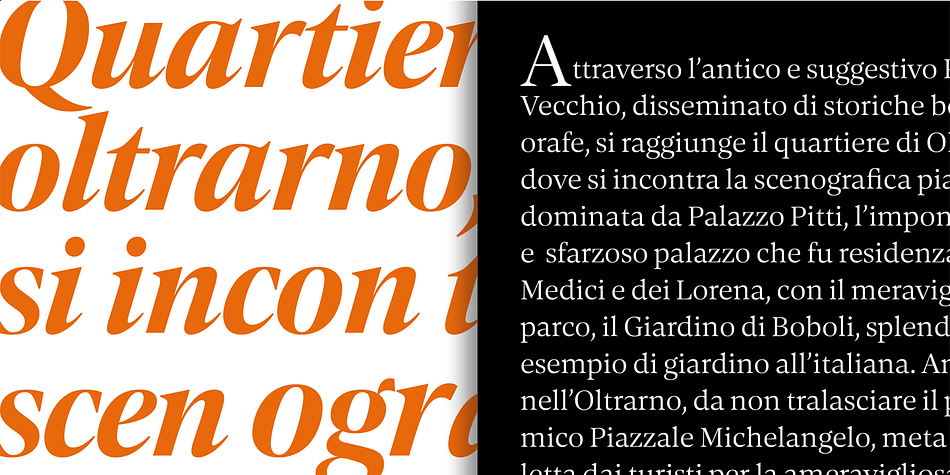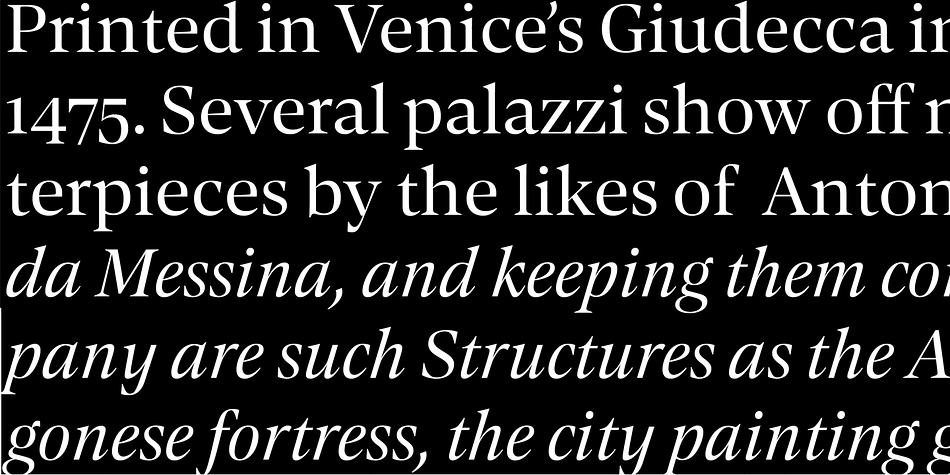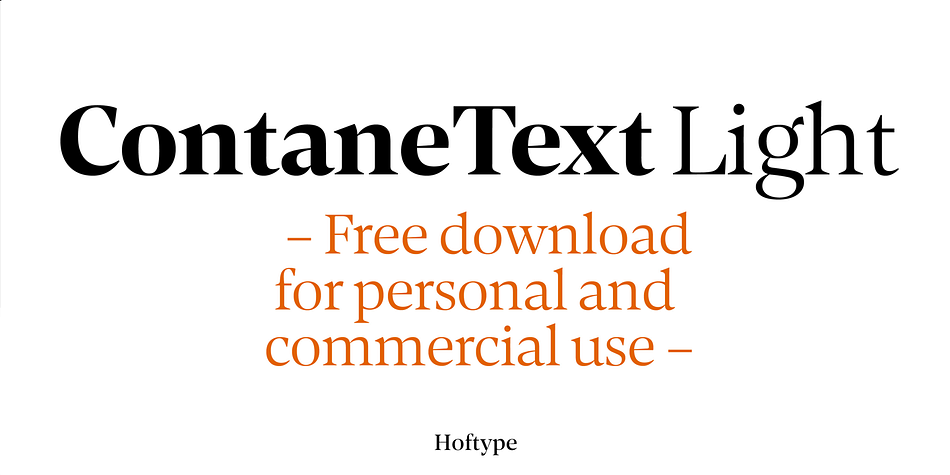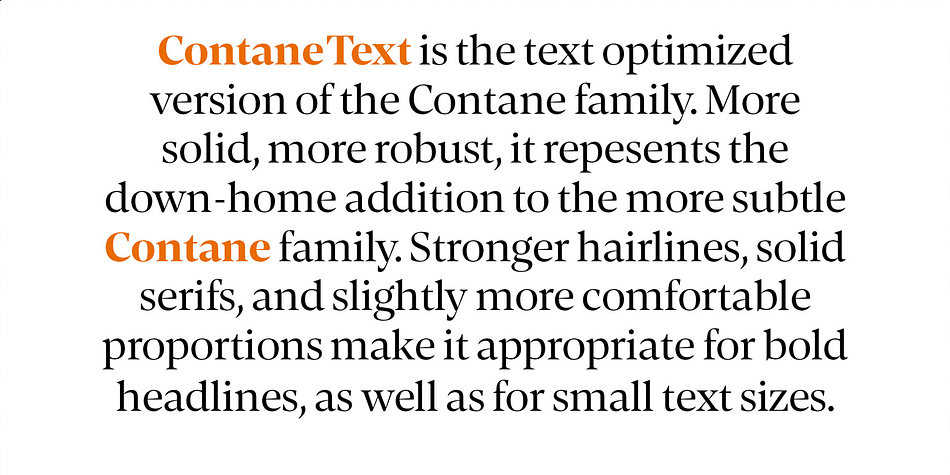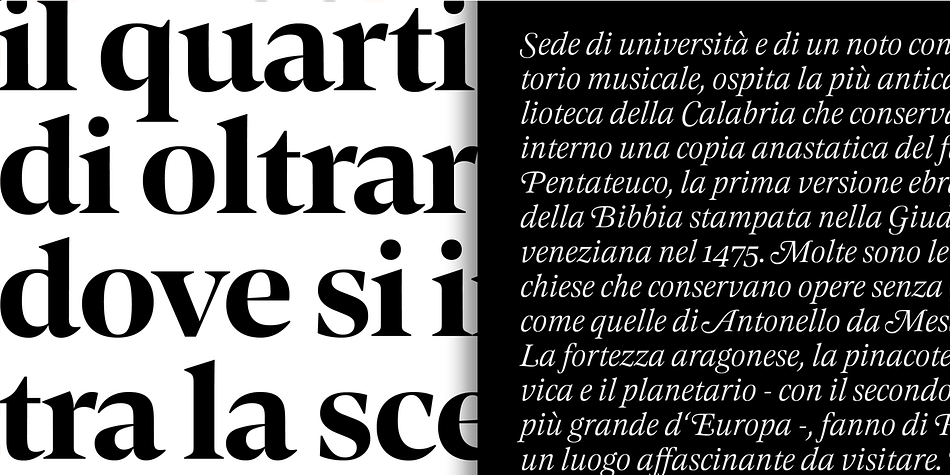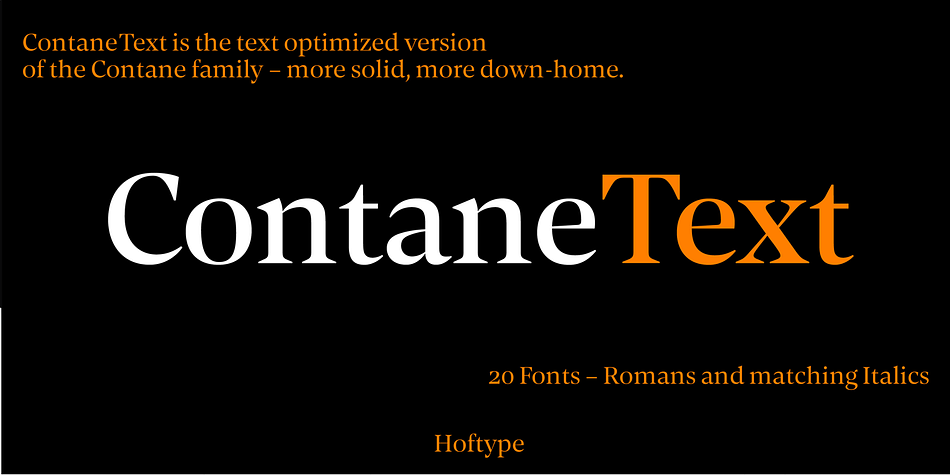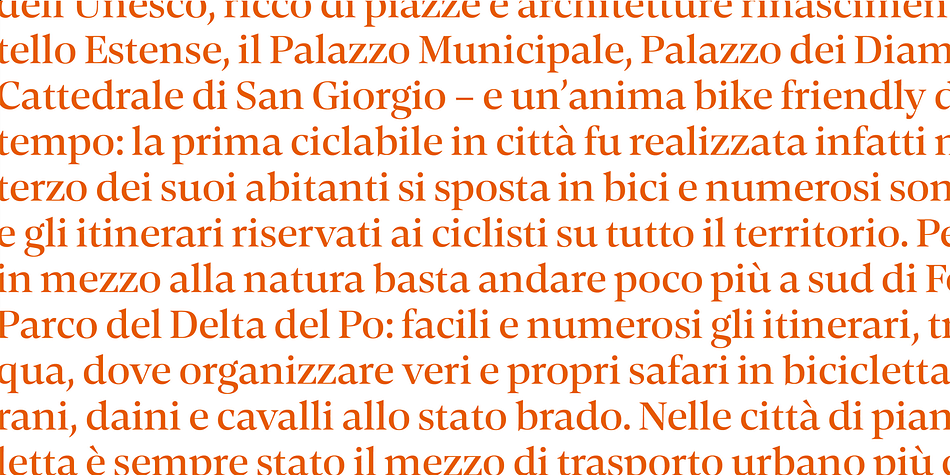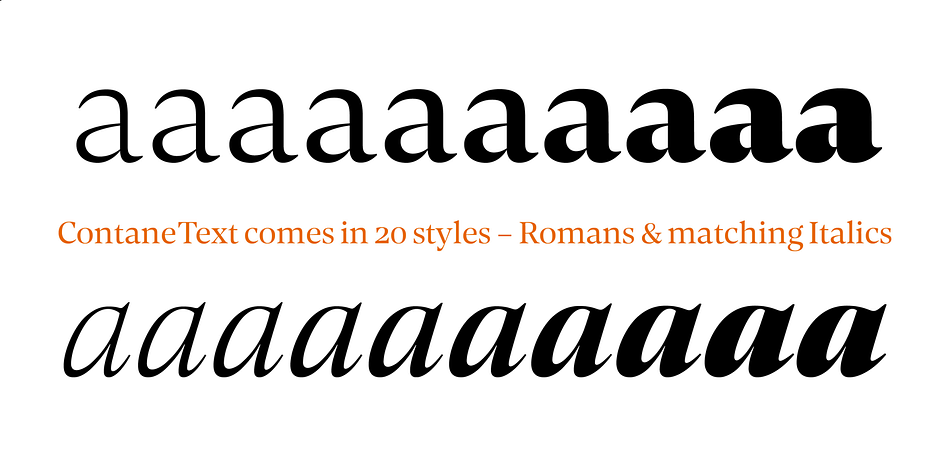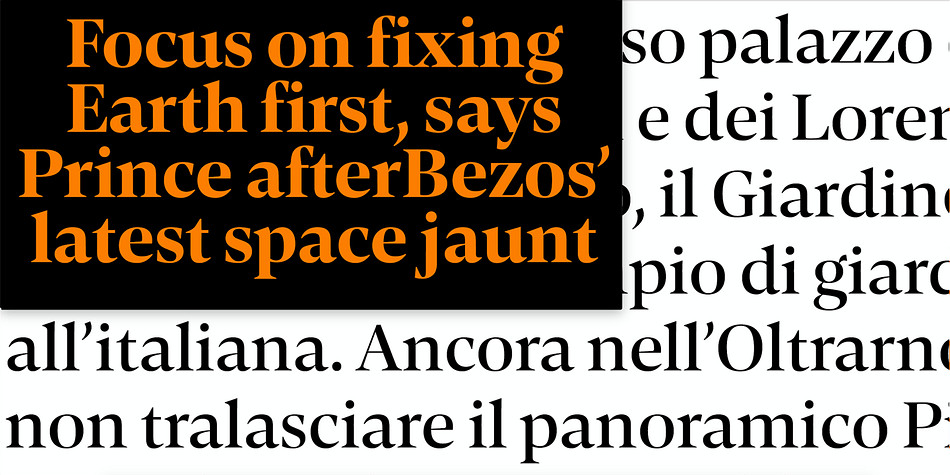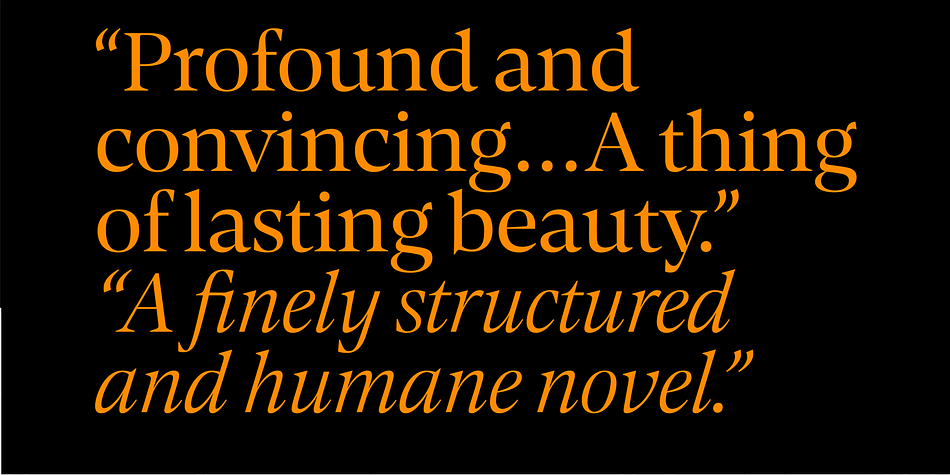
Contane Text
Designed by Dieter Hofrichter, Contane Text is a display serif and serif font family. This typeface has twenty styles and was published by Hoftype.
Contane Text is the text optimized version of the Contane family.
More solid, more robust, it repesents the down-home addition
to the more subtle Contane family. Stronger hairlines, solid serifs,
and slightly more comfortable proportions make it appropriate
for bold headlines, as well as for small text sizes.
20 styles offer fine graduation of the weights. All weights
contain small caps, ligatures, superior characters,
proportional lining figures, tabular lining figures,
proportional old style figures, lining old style figures,
matching currency symbols, fraction- and scientific numerals,
matching arrows, and alternate characters.
Designer Dieter Hofrichter